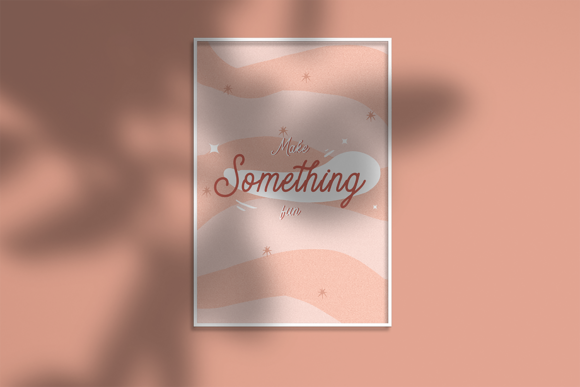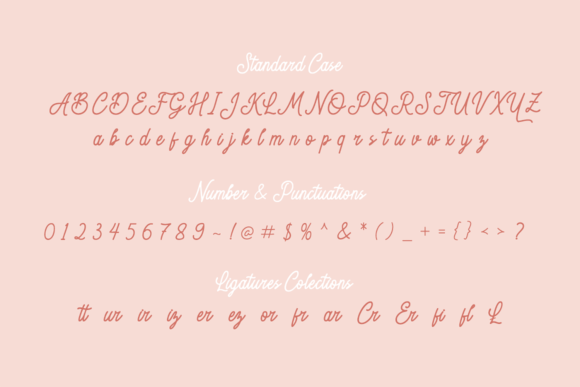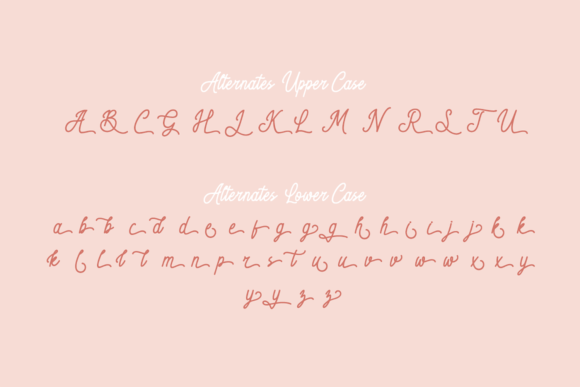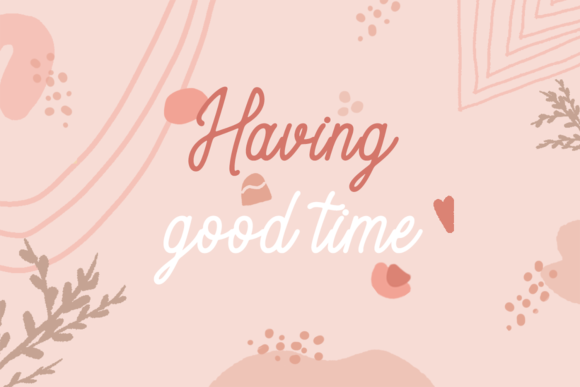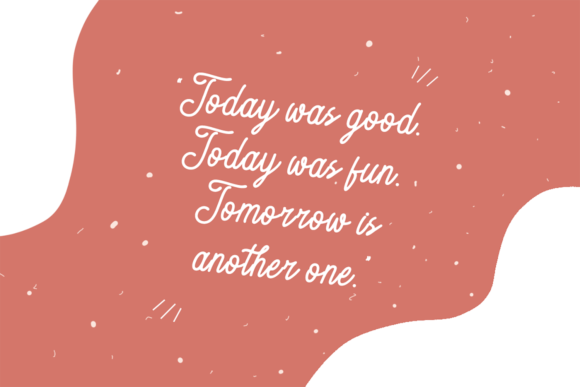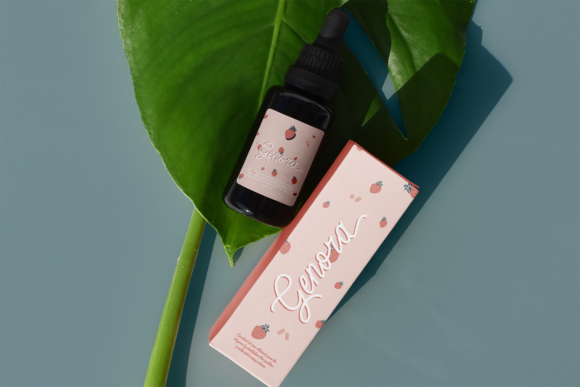
The Genora Font: A Timeless Beauty for Your Creative Projects
I’ll never forget the moment I stumbled upon the Genora font. I was working on a branding project for a boutique client, and I was struggling to find the perfect handwritten font that would convey the elegance and charm of her products. As soon as I saw Genora, I knew I had found the one. Its beautiful, vintage-inspired strokes and effortless flow instantly captured the essence of my client’s brand. In this article, I’ll share with you why I’m obsessed with Genora and how you can make the most of this stunning font in your creative projects.
An Honest Review of Genora Font
What I Love About Genora ✨
- 💫 Beautiful, vintage-inspired handwritten style that’s perfect for branding, packaging, and marketing materials
- ✅ PUA encoded for easy access to all glyphs and swashes
- 🌈 Highly versatile and adaptable to various design contexts, from elegant to playful
- 👍 Excellent for delivering messages with confidence, authenticity, and charm
While Genora is an exceptional font, there are a few minor things to keep in mind:
- 🤔 Some users might find the font a bit too ornate for very simple or minimalist designs
- ⚠️ As with any script font, readability can be a challenge at very small font sizes
The Story Behind Genora Font
While the origins of Genora might be shrouded in mystery, it’s clear that this font was designed with love and care. Imagine a designer, sipping coffee in a quaint café, pouring over vintage typography books and sketching out letters by hand. That’s the kind of dedication and passion that went into creating Genora. The result is a font that’s both timeless and modern, elegant and approachable.
Q: What is PUA encoding, and why is it important?
PUA (Private Use Area) encoding allows font designers to include additional characters, like swashes and glyphs, that aren’t part of the standard Unicode character set. This means you can access a wider range of creative options when using Genora.